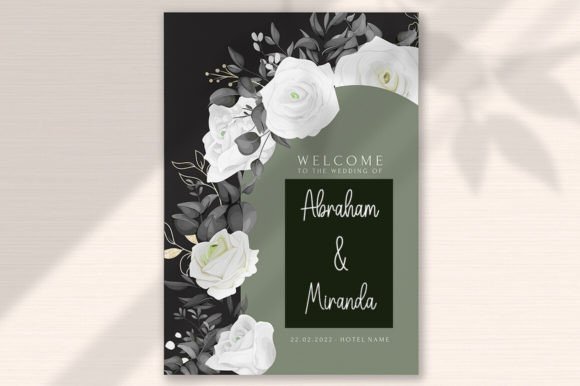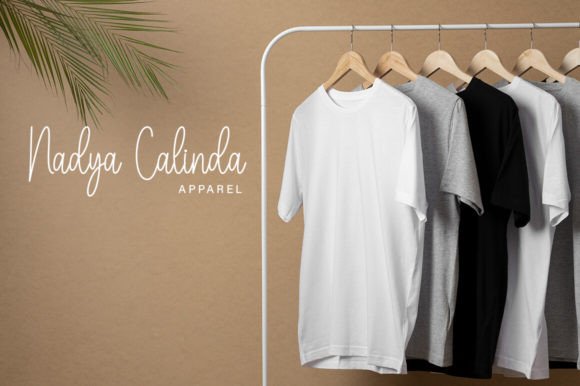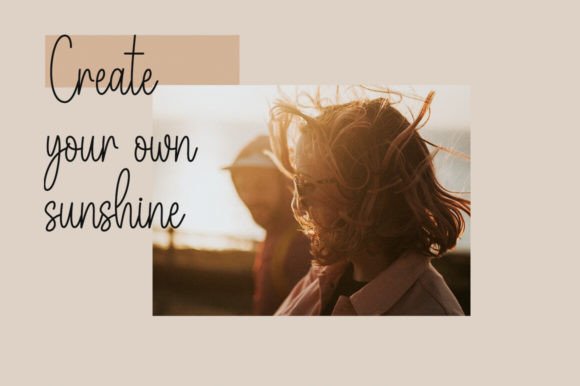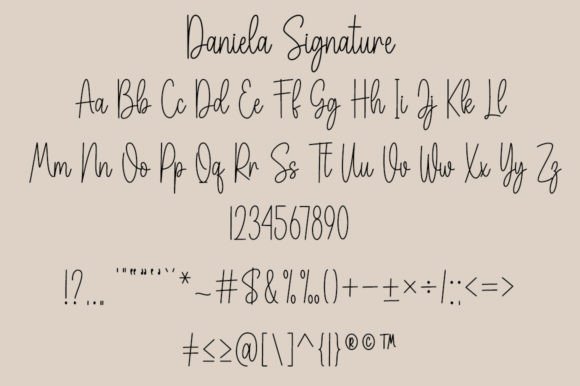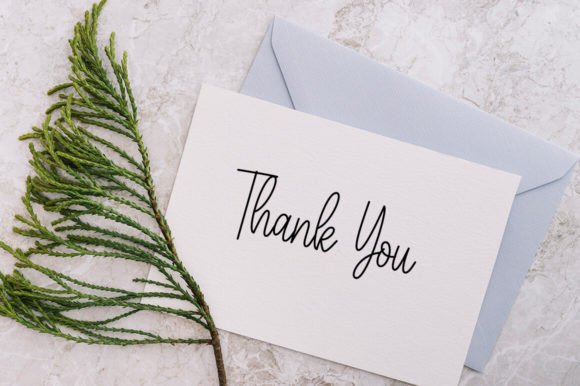
Discover the Elegance of Daniela Font: A Delicate Handwritten Masterpiece
In the world of typography, few fonts manage to capture the essence of elegance and versatility as perfectly as Daniela Signature. This delicate and elegant handwritten font has been making waves among designers and crafters alike, and for good reason. Its distinct and well-balanced letters make it a masterpiece that can elevate any design project to new heights. In this article, we’ll take a closer look at what makes Daniela Font so special and how you can use it to create spectacular designs.
The Characteristics of Daniela Signature
At first glance, Daniela Signature appears to be a simple, handwritten font. However, upon closer inspection, its unique characteristics become apparent. Each letter is carefully crafted to exude a sense of elegance and sophistication, making it perfect for a wide range of design applications. The font’s delicate lines and curves are meticulously balanced, creating a harmonious flow that is both visually appealing and easy to read.
One of the standout features of Daniela Signature is its incredible versatility. This font can seamlessly transition from one design style to another, making it an excellent addition to any designer’s toolkit. Whether you’re working on a wedding invitation, a branding project, or a digital advertisement, Daniela Font can adapt to fit your needs. Its neutral yet refined aesthetic allows it to complement a variety of design elements, from bold graphics to minimalist layouts.
Why Designers and Crafters Love Daniela Font
Designers and crafters love Daniela Font for several reasons. Firstly, its unique and elegant style allows them to add a personal touch to their projects. The font’s handcrafted feel gives designs a humanizing element that can be difficult to achieve with more traditional fonts. Additionally, Daniela Signature is incredibly easy to use, with clear and legible letters that ensure your message is conveyed effectively.
Using Daniela Font in Your Designs
So, how can you incorporate Daniela Signature into your designs? Here are a few ideas to get you started:
- Wedding Invitations: Add a touch of romance and sophistication to your wedding invitations with Daniela Font. Its elegant style is perfect for formal and semi-formal events.
- Branding Projects: Use Daniela Signature to create a unique and memorable brand identity. Its versatility makes it suitable for a wide range of industries, from fashion to food and beverage.
- Digital Advertisements: Make your digital ads stand out with Daniela Font. Its delicate lines and curves can add a touch of elegance to even the most crowded digital spaces.
- Stationery and Paper Crafts: Daniela Signature is also perfect for stationery and paper crafts, such as greeting cards, journals, and planners. Its handcrafted feel adds a personal touch to any paper project.
Daniela Signature is more than just a font – it’s a design experience. Its delicate and elegant handwritten style, combined with its versatility and ease of use, make it a must-have for designers and crafters. Whether you’re looking to add a touch of sophistication to your designs or simply want to try something new, Daniela Font is an excellent choice. So why not fall in love with Daniela Signature and take your designs to the next level?
In conclusion, Daniela Font is a delicate and elegant handwritten font that is sure to capture your heart. Its distinct and well-balanced letters make it a masterpiece that can elevate any design project. With its versatility, ease of use, and unique style, Daniela Signature is an excellent addition to any designer’s toolkit. So go ahead, give Daniela Font a try, and discover the elegance and sophistication it can bring to your designs.